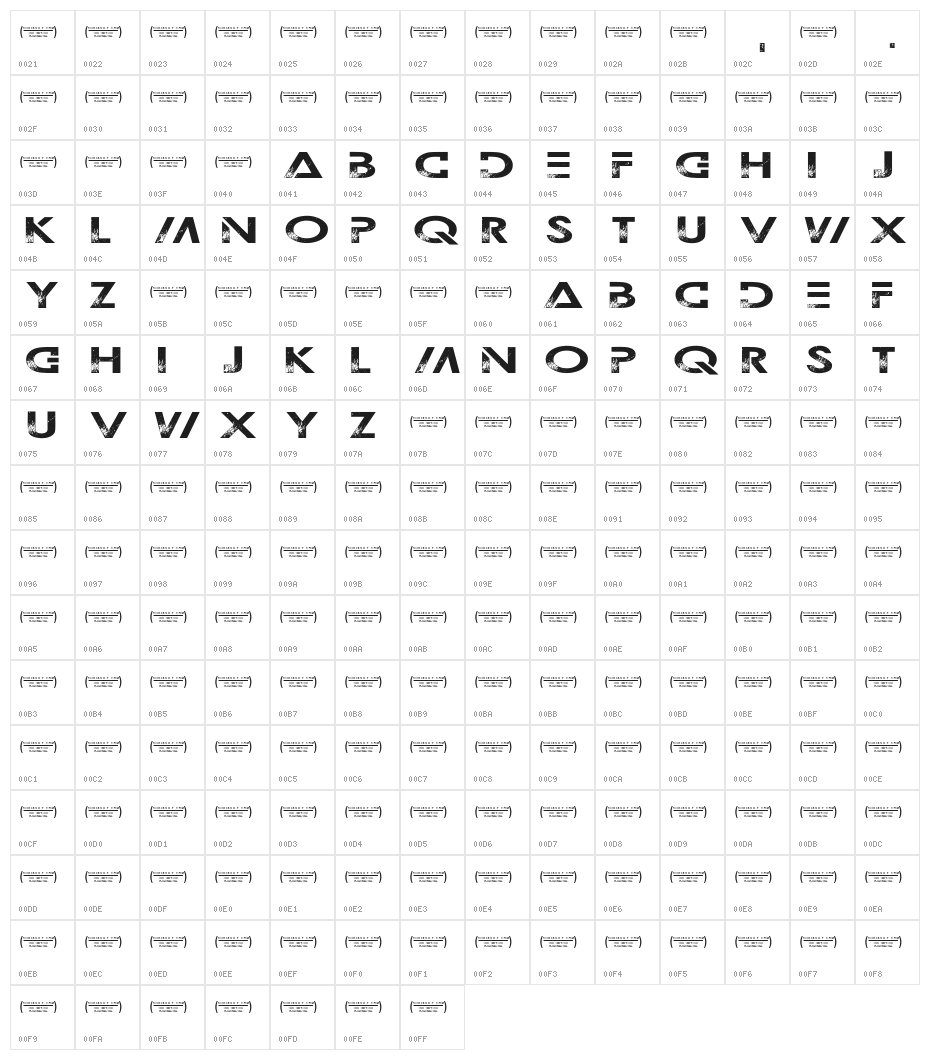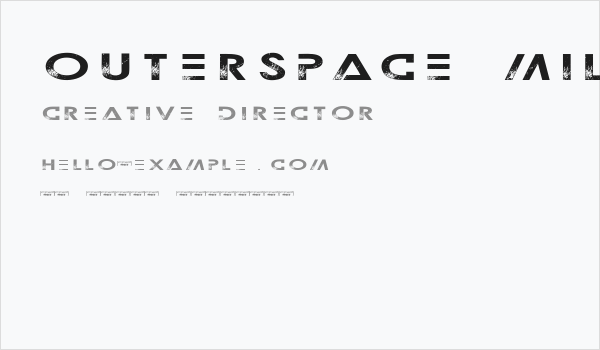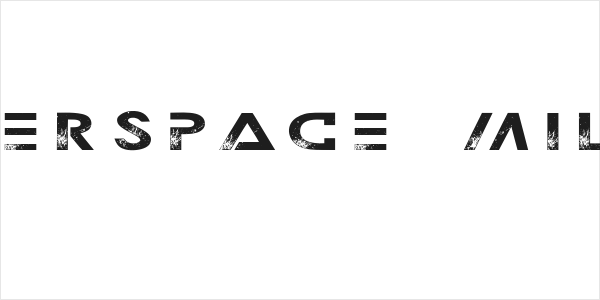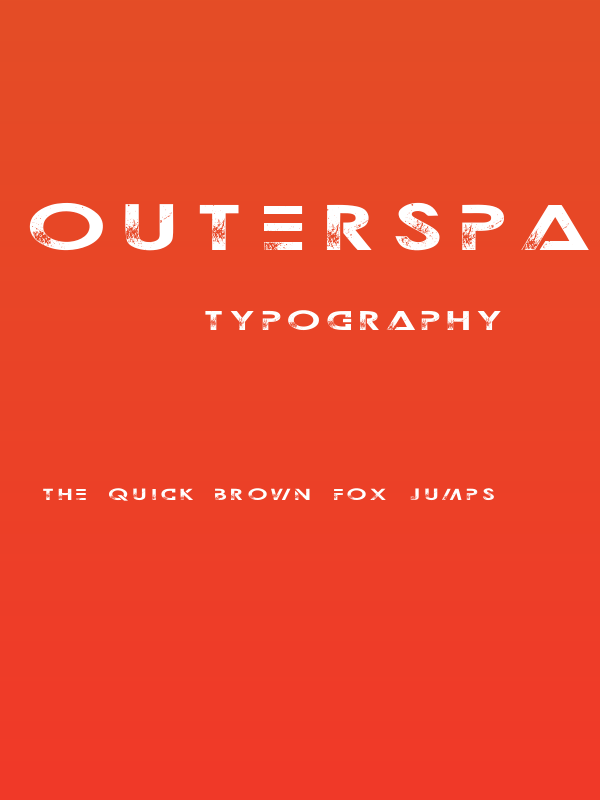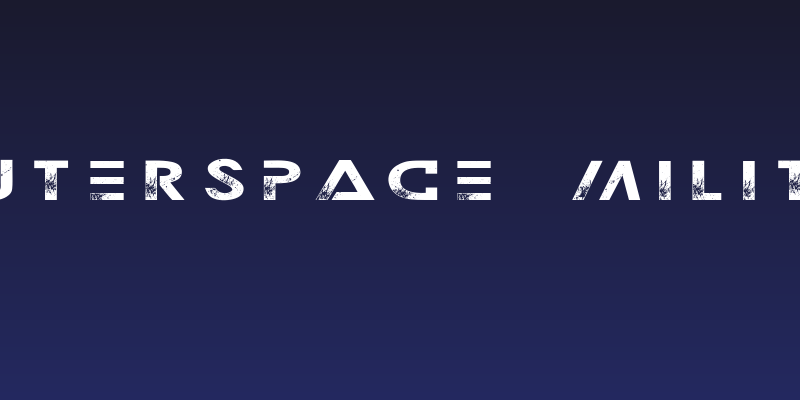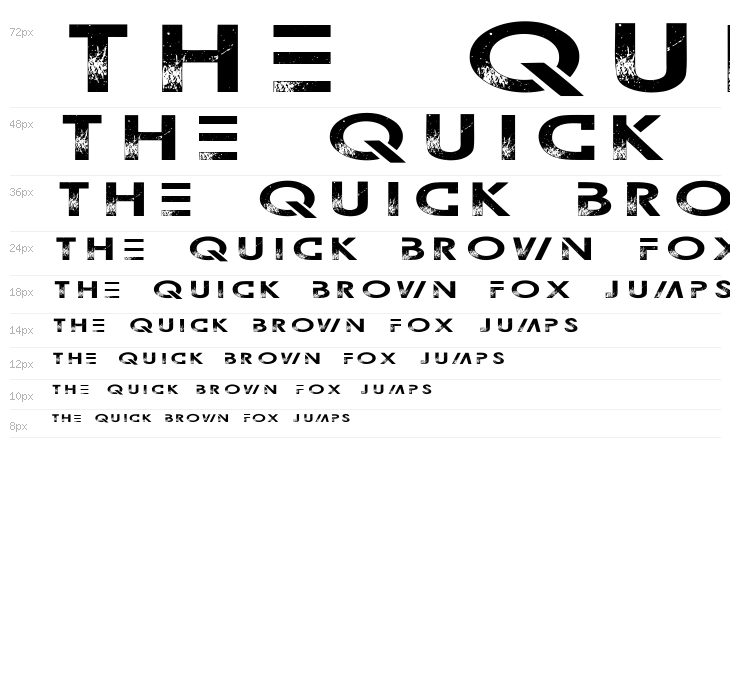
Outerspace Militia Font
Outerspace Militia Description
This font features a bold, futuristic design with a distressed texture that gives it a rugged, worn look. The characters are angular and geometric, with sharp edges and a stencil-like appearance. The uppercase letters are uniform in height, creating a cohesive and structured feel. The distressed effect adds a layer of complexity, making it suitable for projects that require a gritty, industrial aesthetic. The font's unique style is eye-catching and memorable, making it ideal for creative and bold design projects.
| Overall Style | Futuristic, Industrial |
| Proposed Projects | Ideal for sci-fi themed posters, video game graphics, branding for tech companies, and edgy apparel designs. |